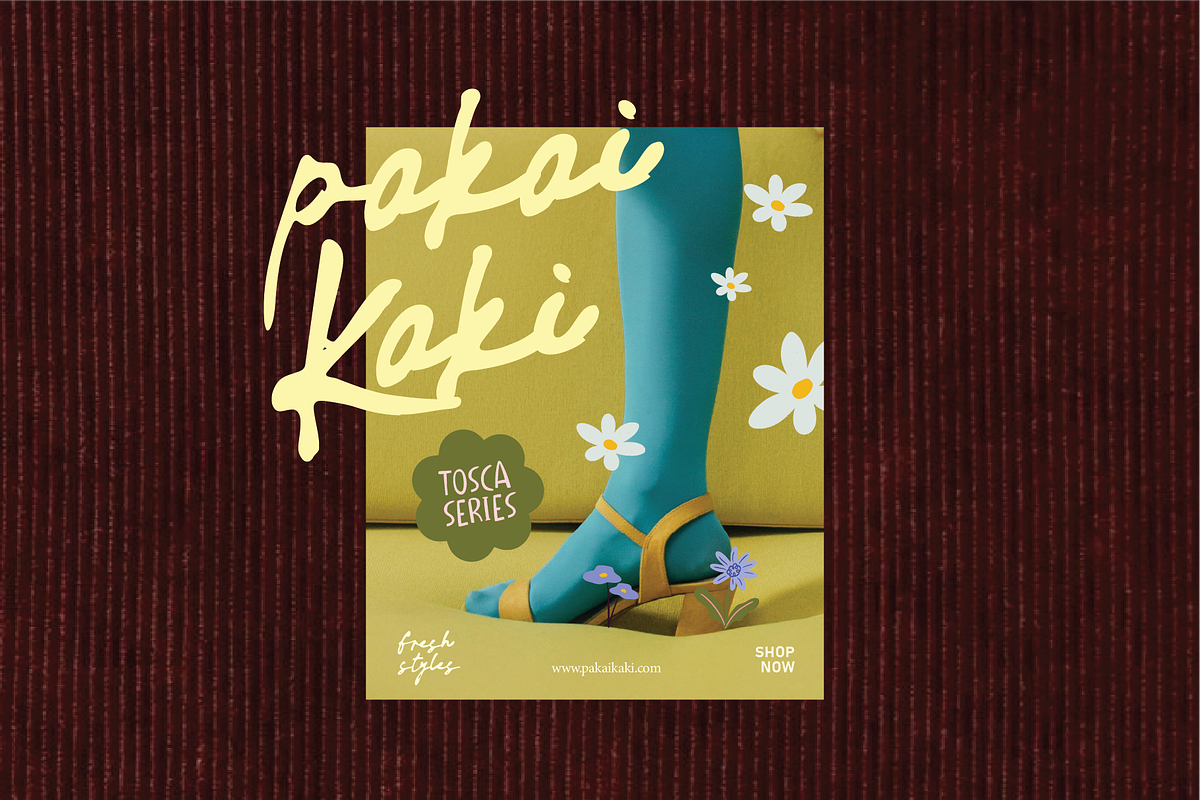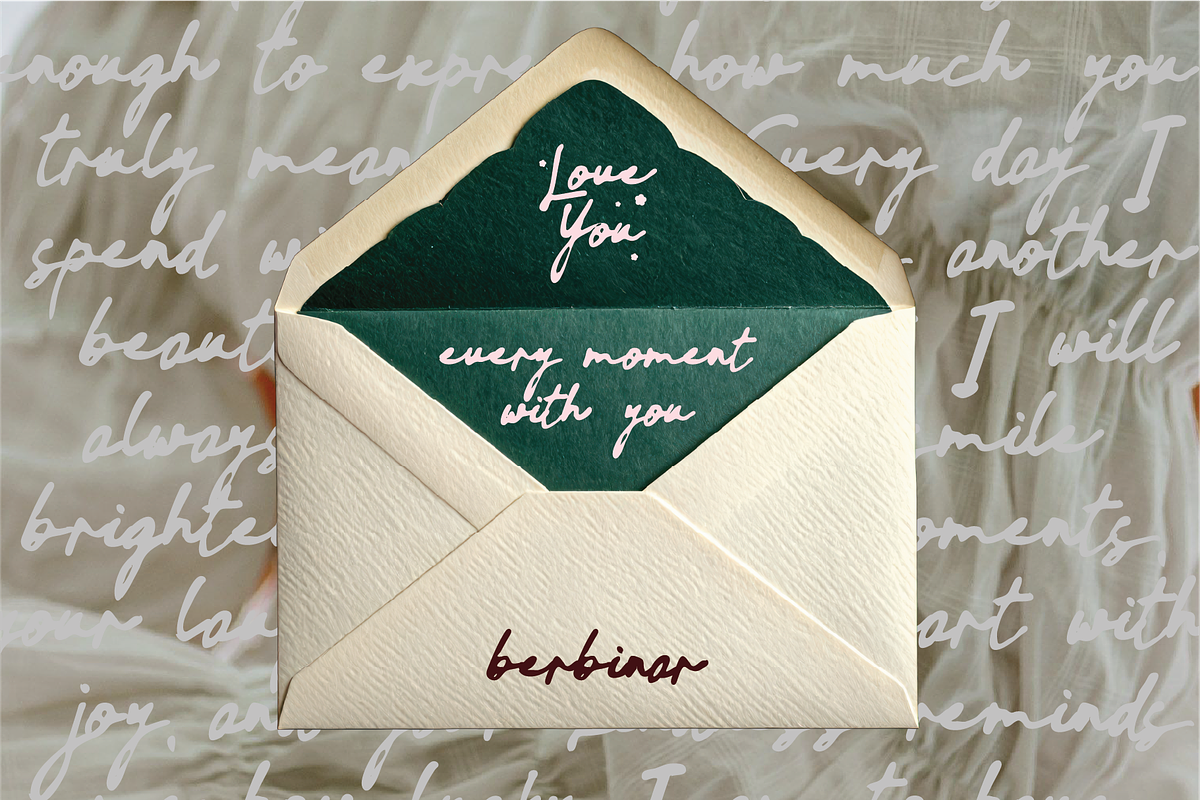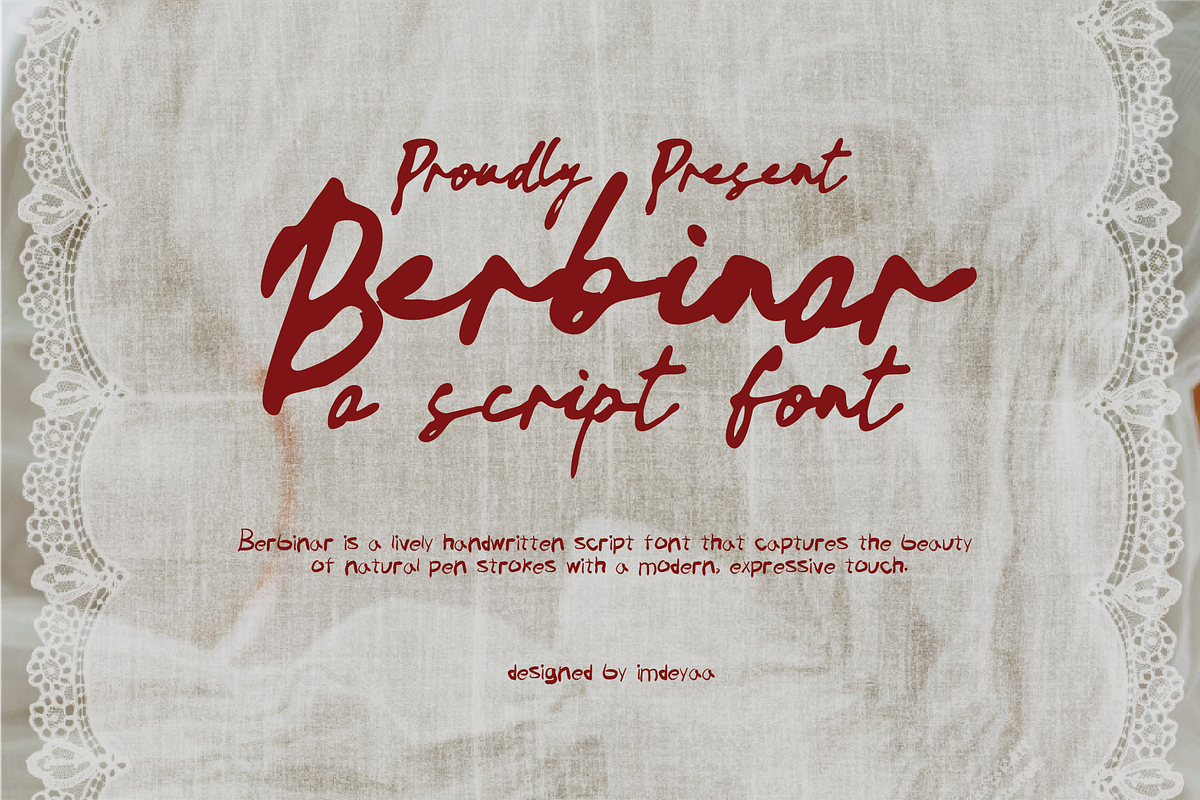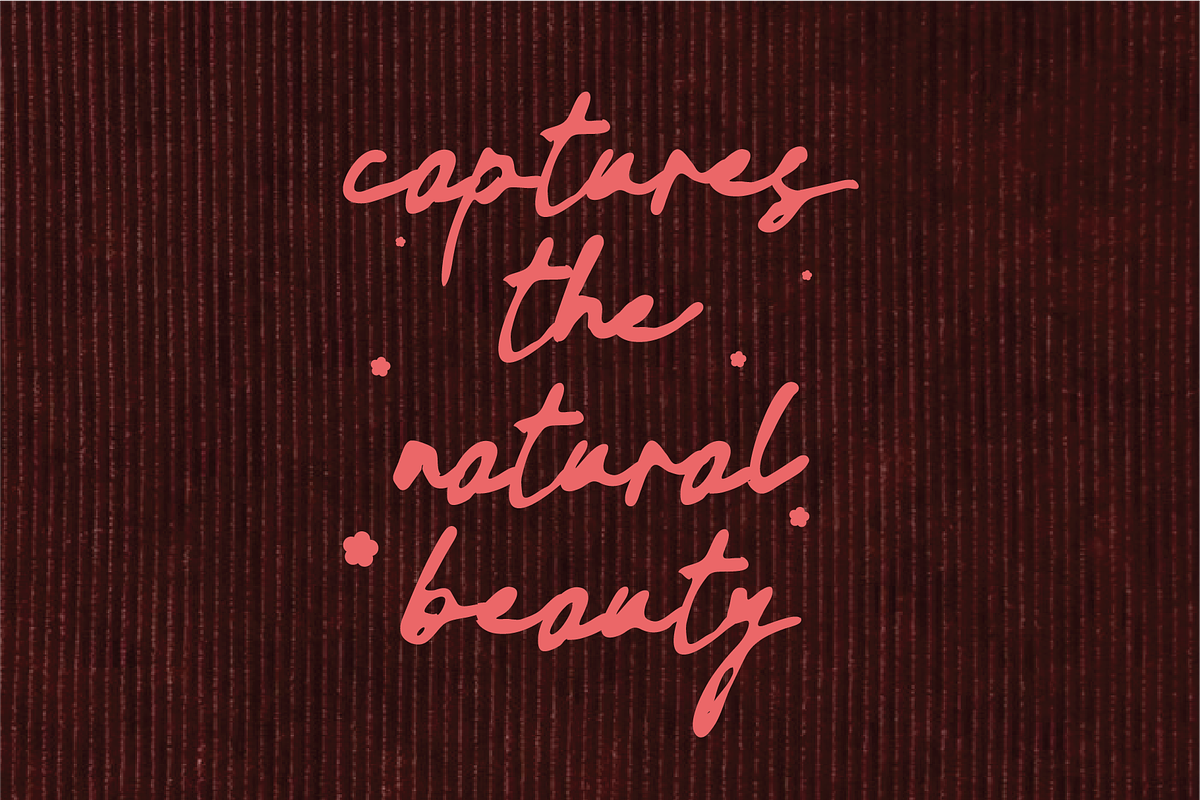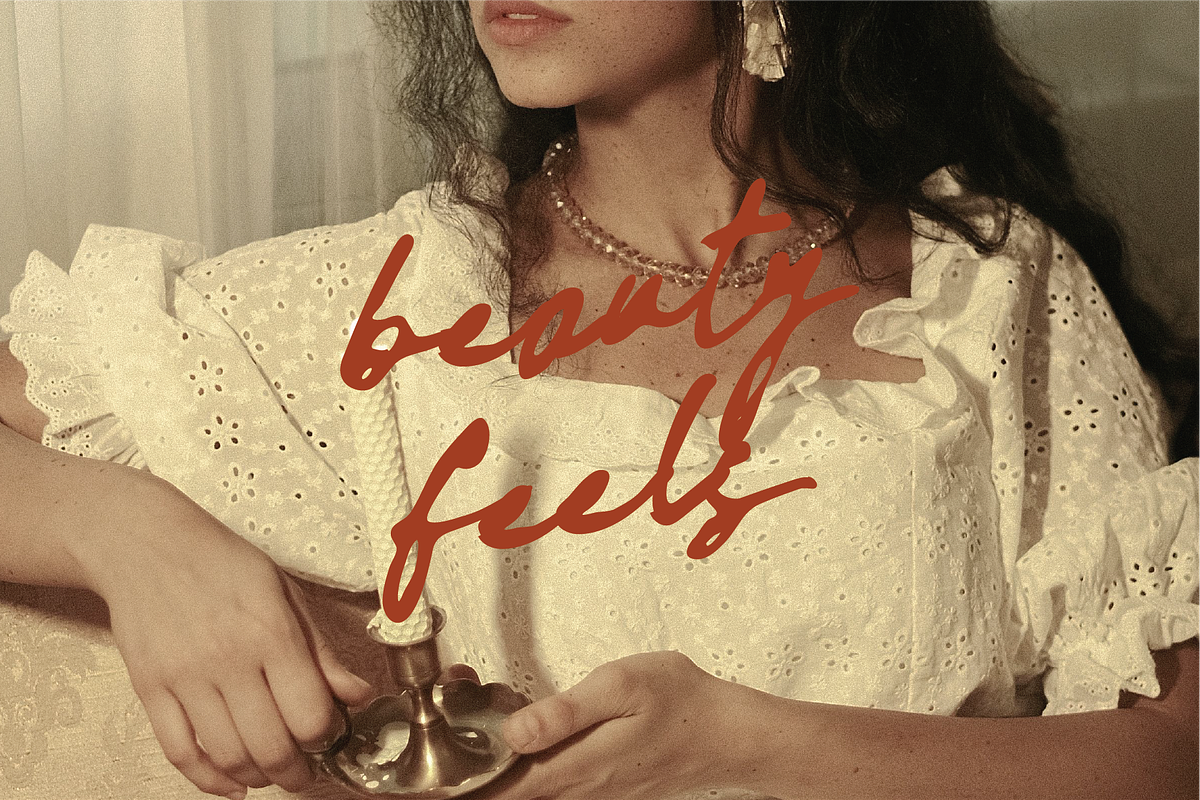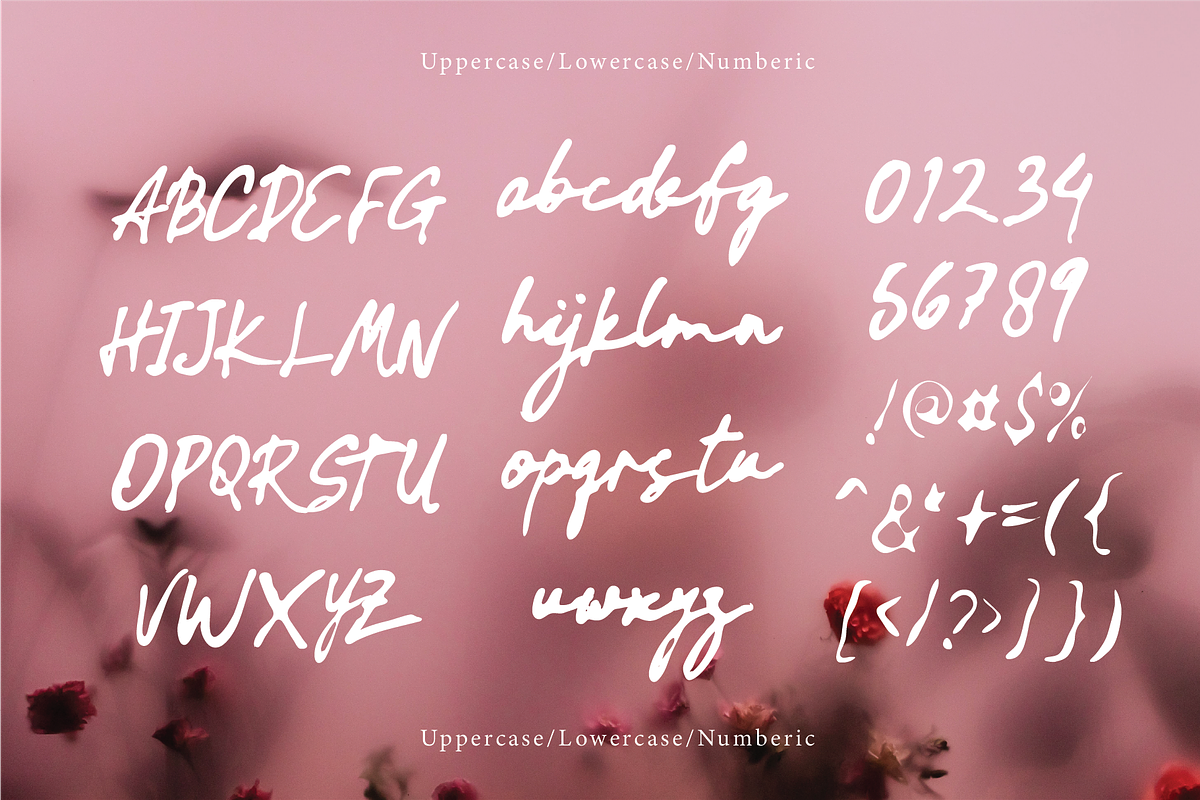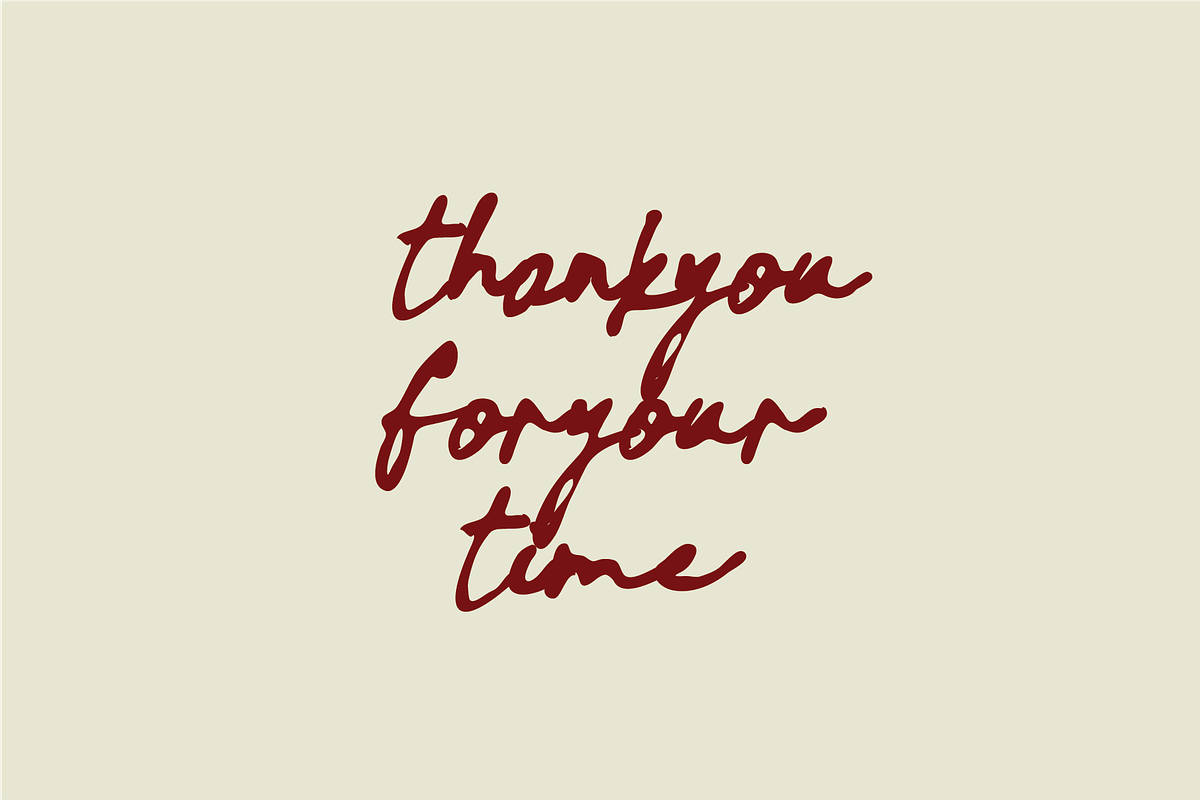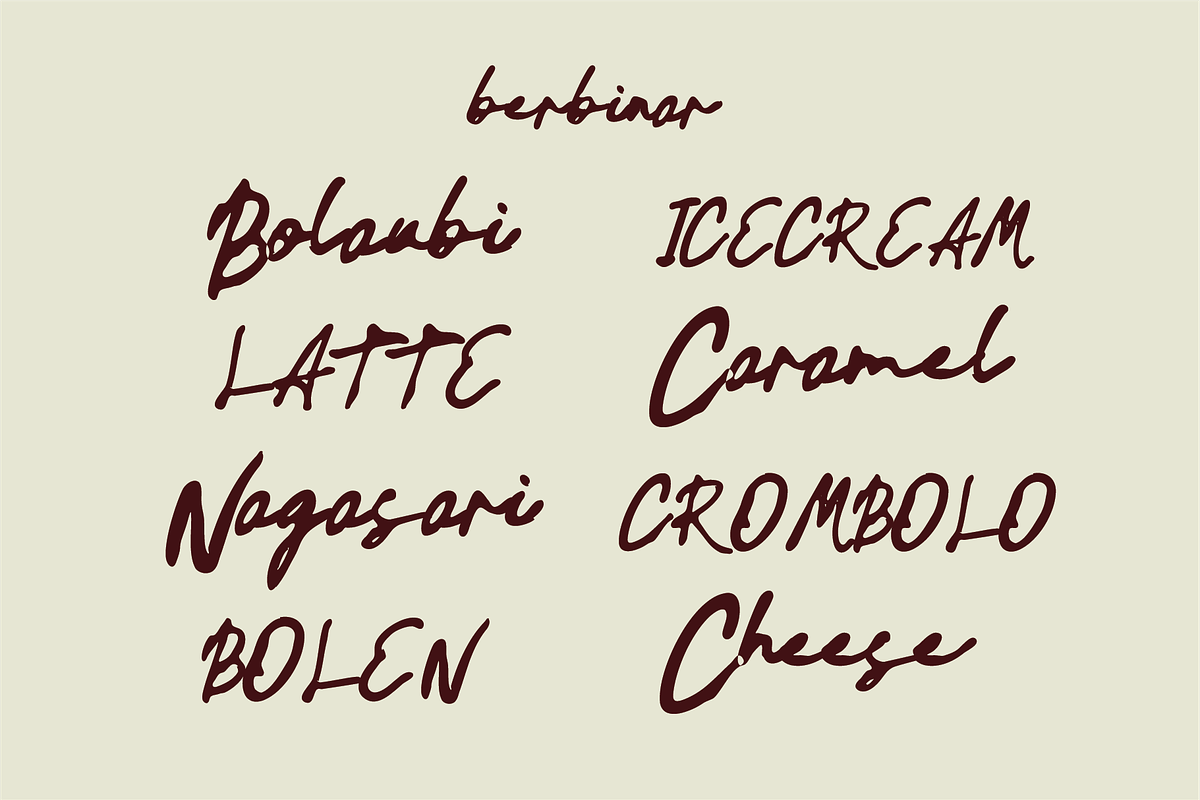
Berbinar | A Ink Script Font
Berbinar is a lively handwritten script font that captures the beauty of natural pen strokes with a modern, expressive touch.